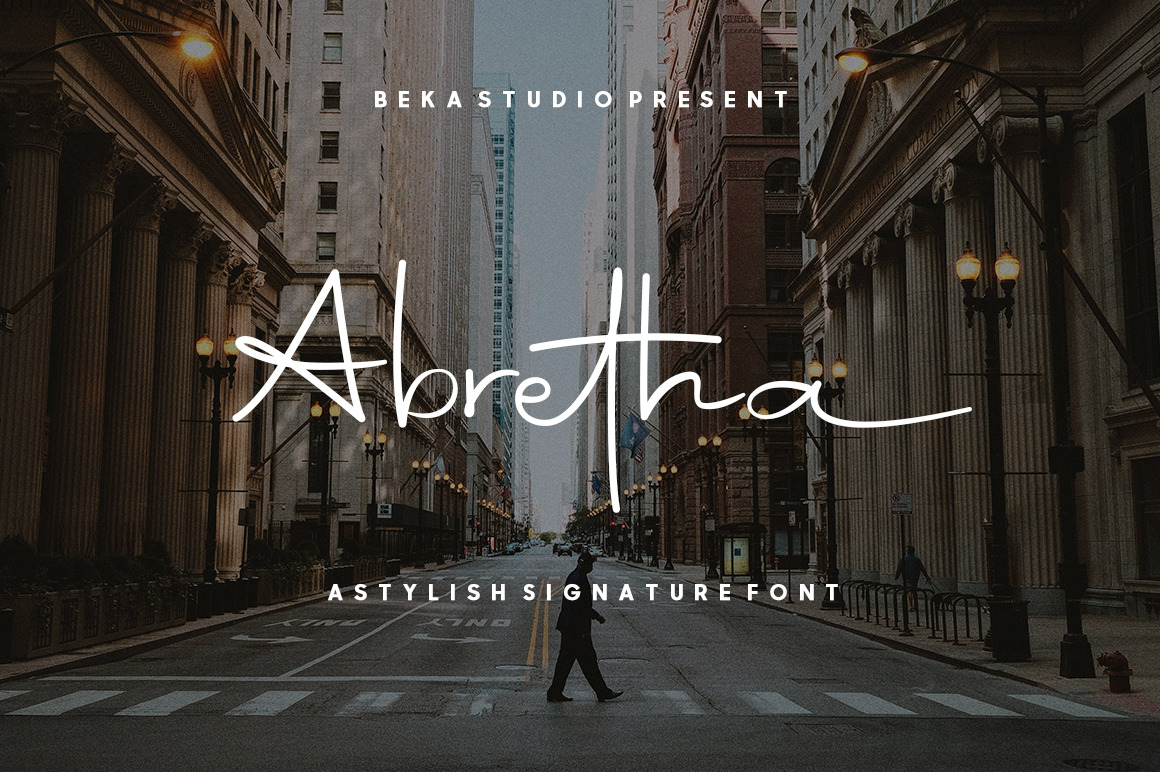
Abretha Elegant Fonts
Abreha Elegant Font is a elegant and a signature stylish script.
Abreha Elegant Font is perfect for branding projects, logo, wedding designs, social media posts, advertisements, product packaging, product designs, label, photography, watermark, invitation, stationery and any projects that need handwriting taste.
- Ligature & Alternate